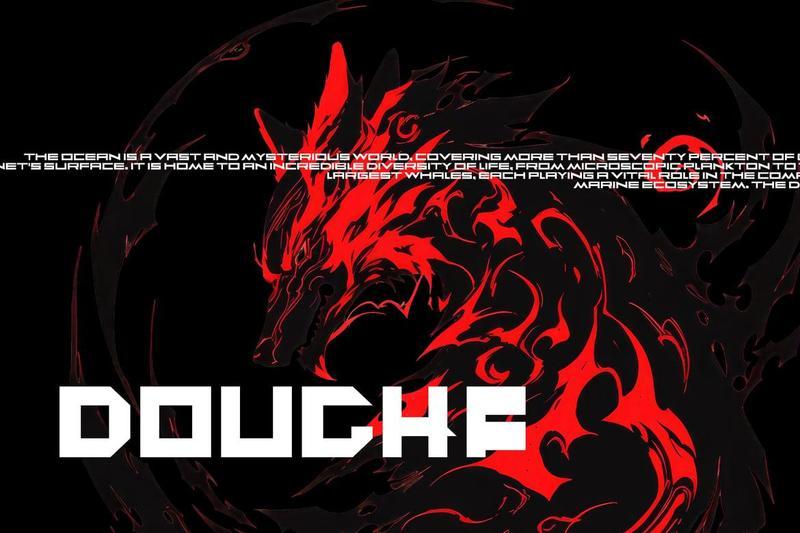
DoughF K9MAT8D
The font utilizes dynamic kerning and slight character shifts when animated to suggest the processing speed and instantaneous calculation of the robot’s mind. It is a highly readable, yet strikingly futuristic sans-serif that lends a sense of cold, undeniable power and dynamic, real-time consciousness to the machine characters.